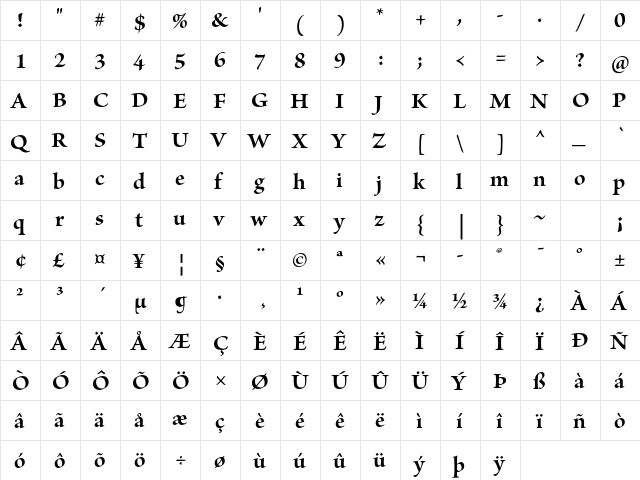
Brioso Pro Bold Subhead
| Designer | Robert Slimbach |
Design Context for Brioso Pro Typeface
Brioso Pro is a composed and adaptable typeface that performs quietly and consistently across a wide range of design contexts. The heavy weight commands attention and anchors typographic hierarchies.
Pro Tip: Pair Brioso Pro with a font of contrasting weight or personality to build a more expressive typographic hierarchy.